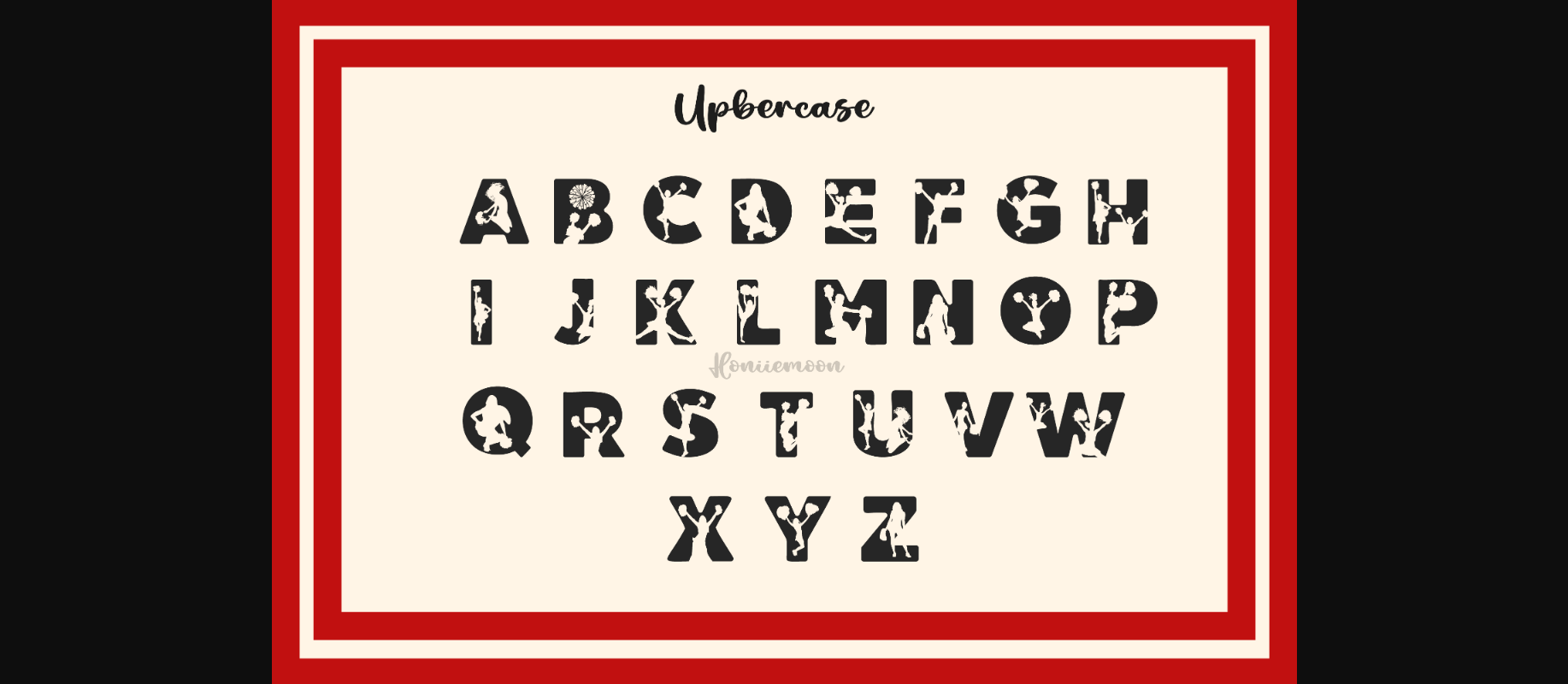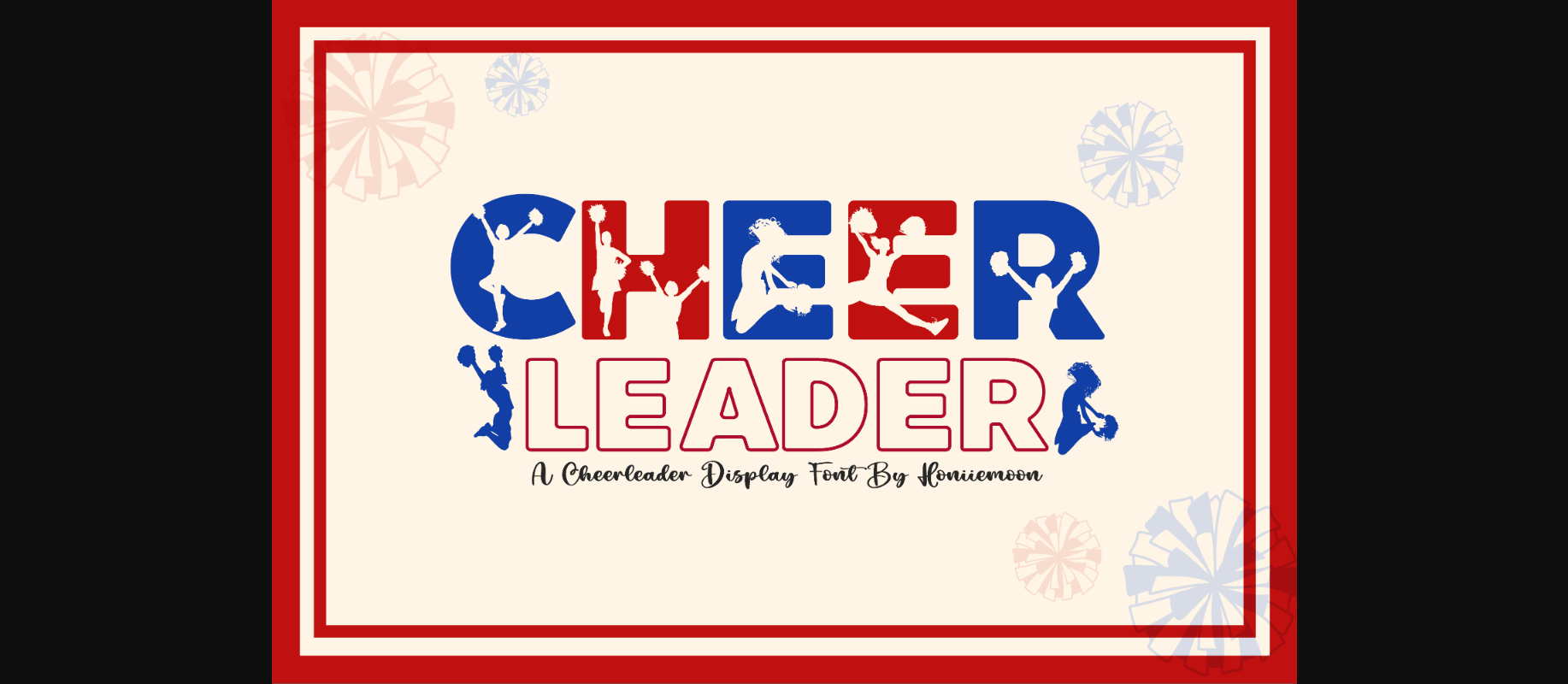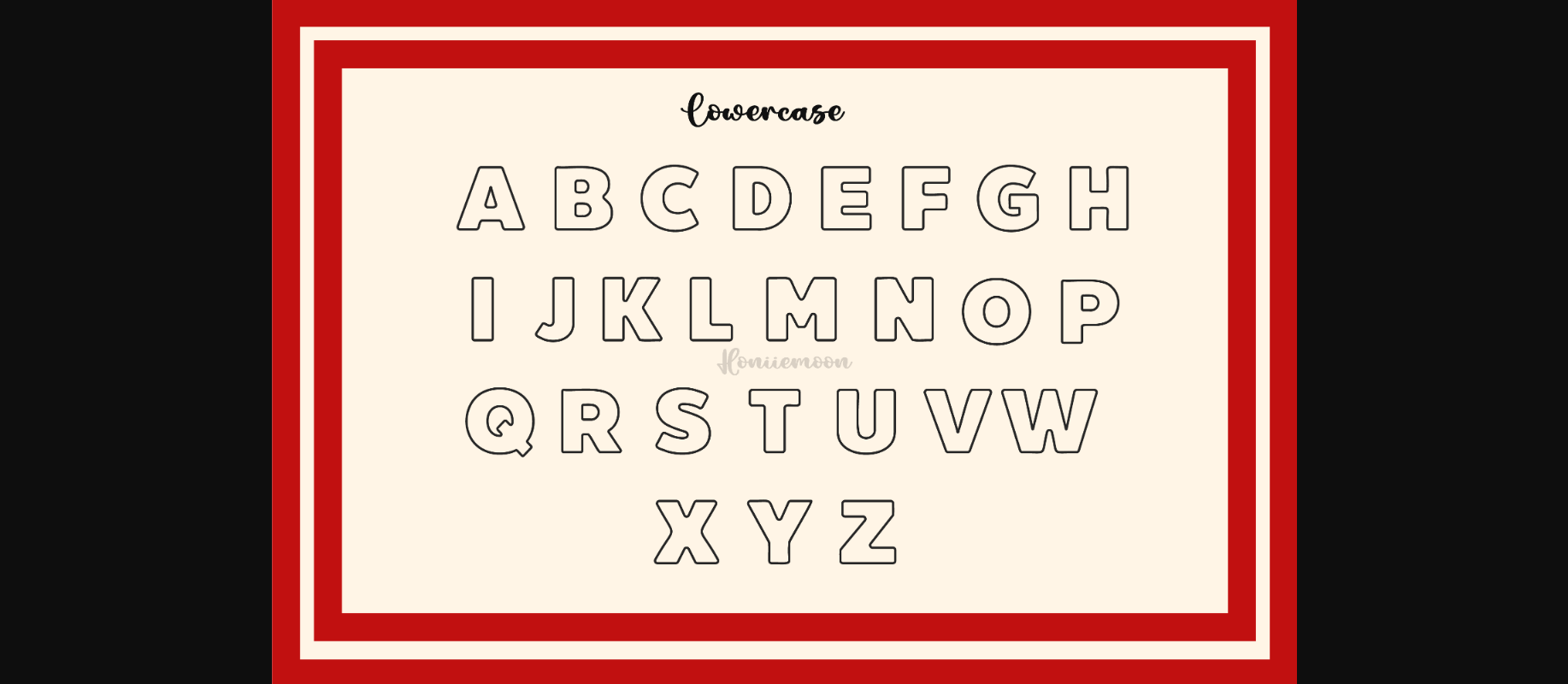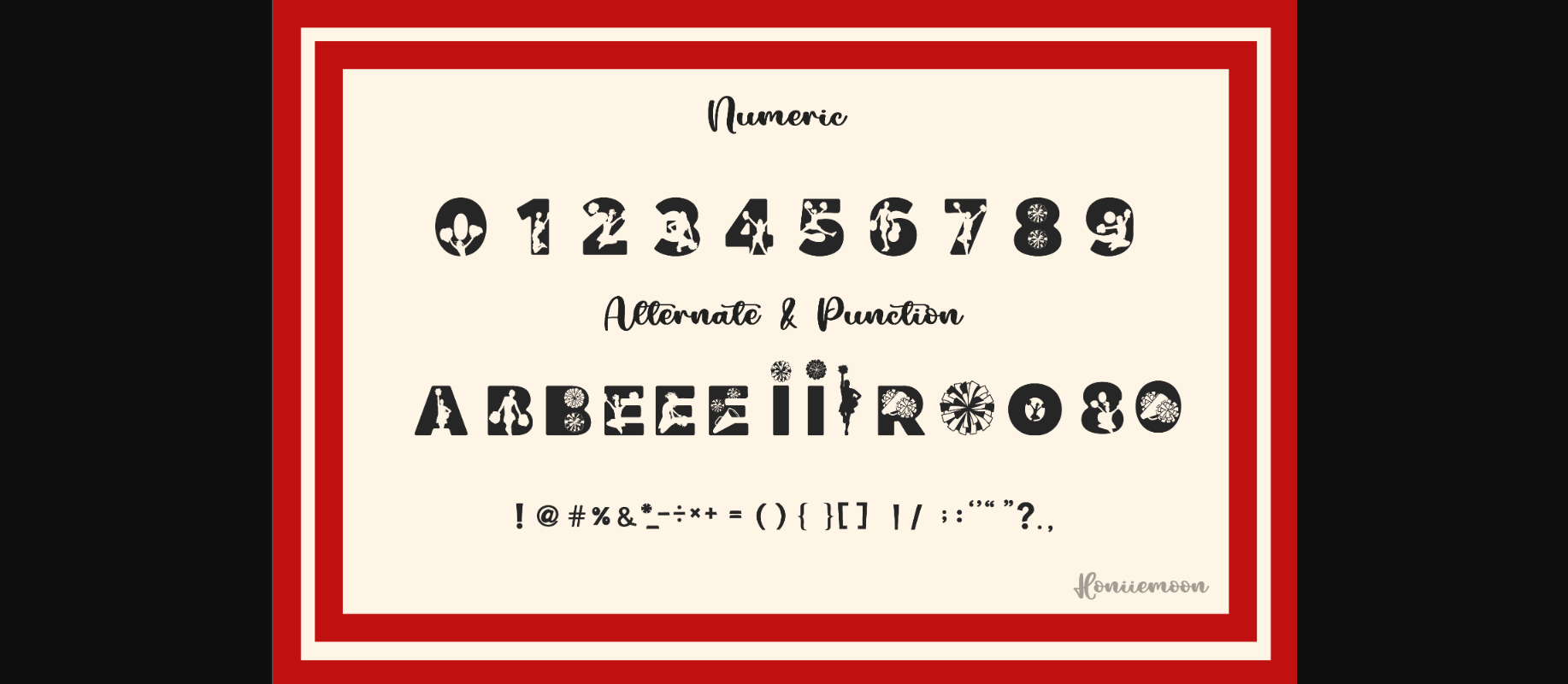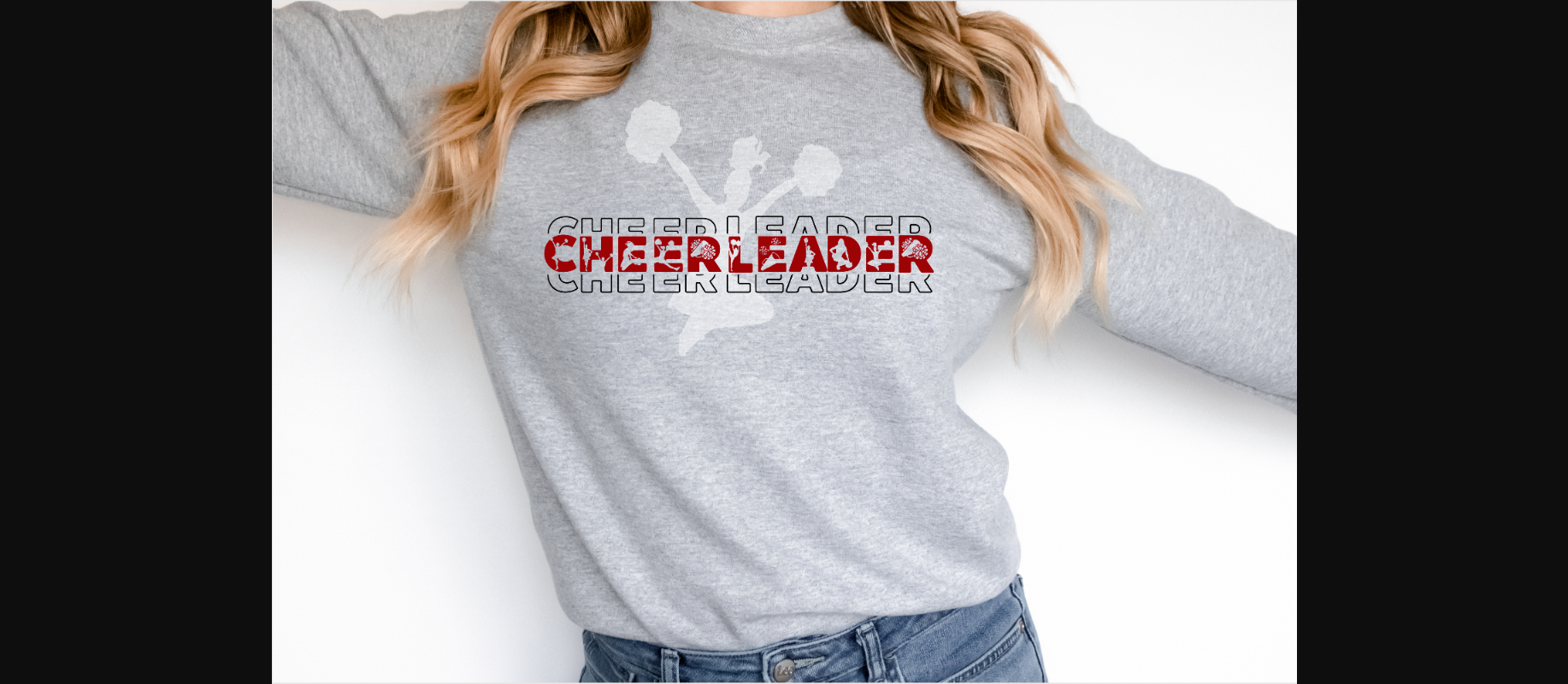
Cheerleader Font
About Cheerleader Font
Cheerleader is a cool and fun decorative font. It looks both cute and jolly and it will enhance each of your designs. The only limit is your imagination. Add this colorful and bold display font to each of your creative ideas and notice how it makes them come alive!